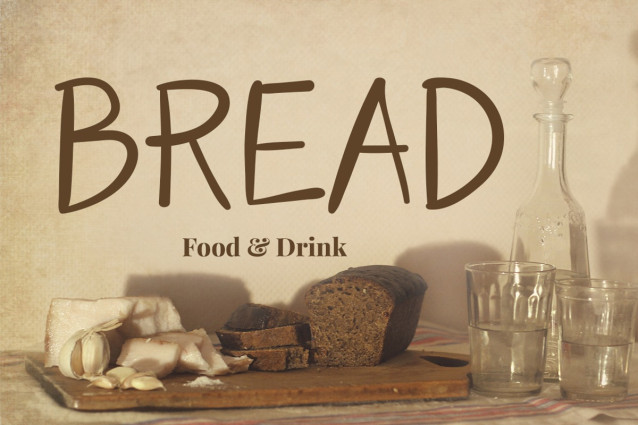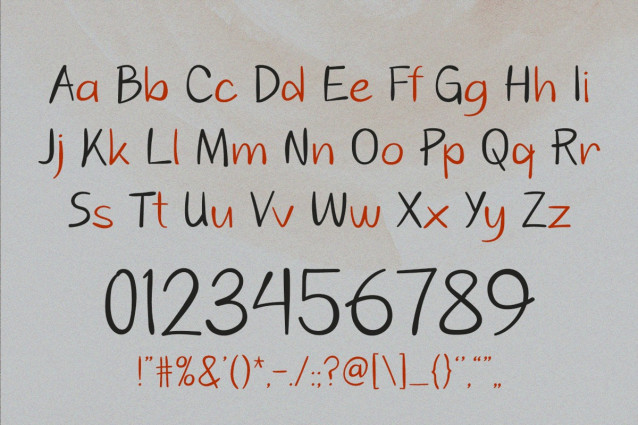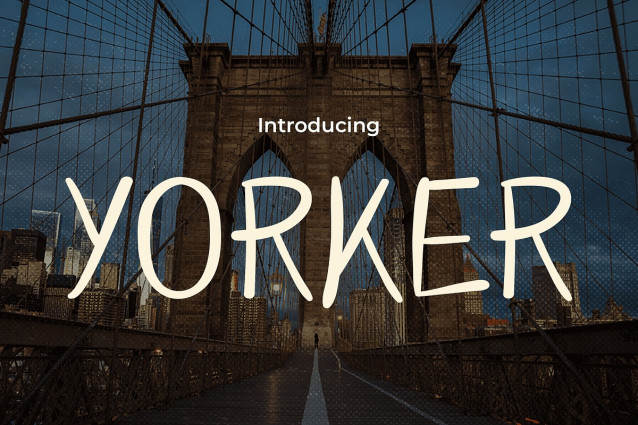
Yorker Font
Yorker Font is a display font that blends classic sophistication with modern flair, creating an unforgettable impression for your products or brand. Each letter is meticulously crafted, exuding elegance and strength that will make your design stand out from the crowd. Suitable for various industries, from fashion to upscale dining, Yorker will provide an exclusive and captivating identity for your brand